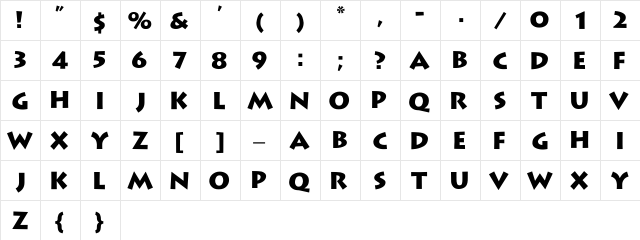
LithographExtBo Regular
Design Context for LithographExtBo Typeface
LithographExtBo takes a measured approach to typography — its balanced proportions and neutral character make it a reliable workhorse for both digital and print work.
Pro Tip: Use LithographExtBo in both headline and body roles to test its range before committing to a single application.